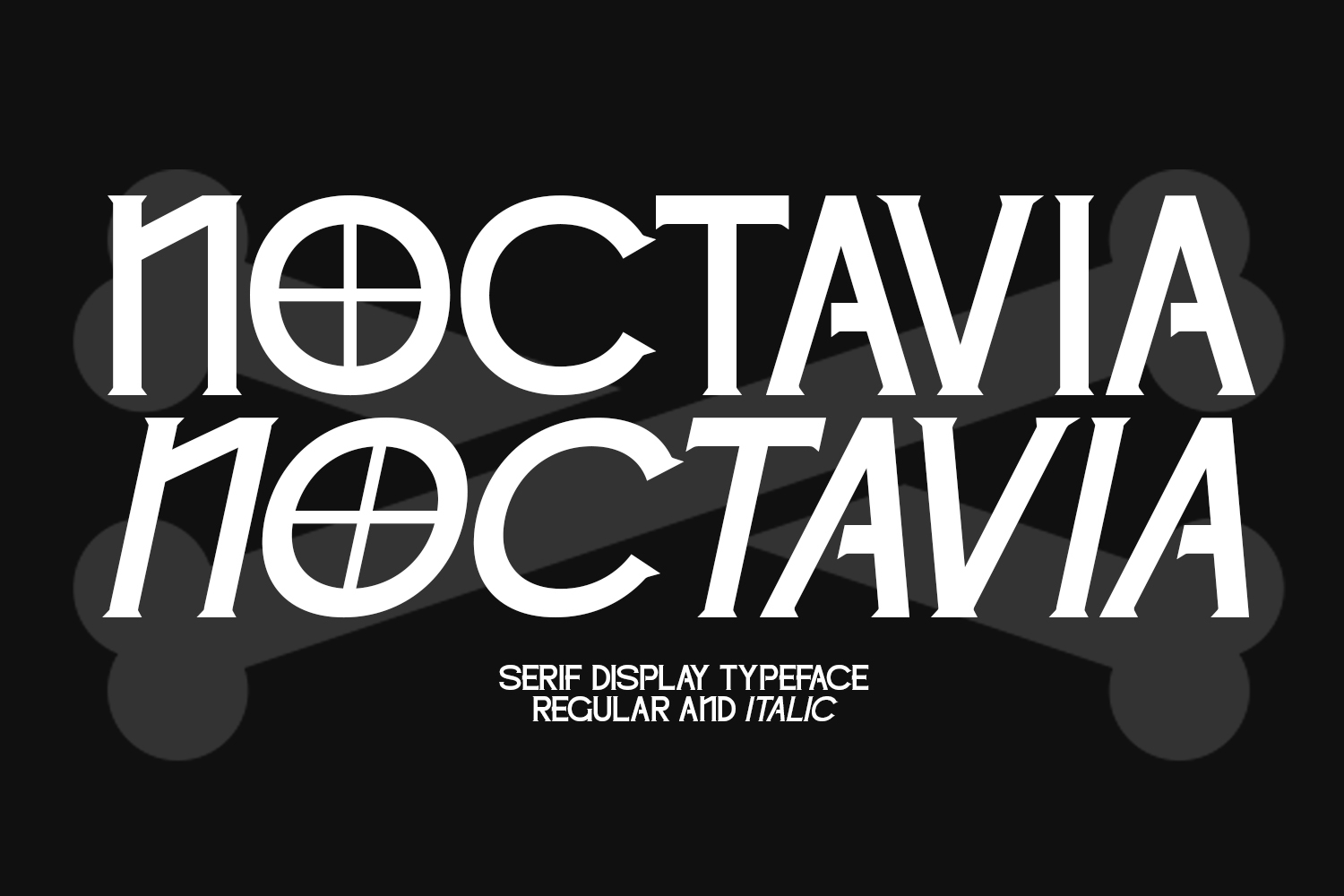
Noctavia - Gothic Serif Display Typeface
This font is a Decorative Art Deco Display Typeface that blends 1920s–1930s Art Deco elegance with gothic-inspired geometric styling. The design features strong vertical construction, high contrast, architectural forms, and distinctive circular crosshair motifs that create a luxurious yet mysterious visual identity.
A bold Art Deco display typeface featuring geometric letterforms, decorative crosshair motifs, and vintage luxury styling. Perfect for Gatsby-inspired branding, theatrical posters, premium packaging, cabaret promotions, and sophisticated editorial design.